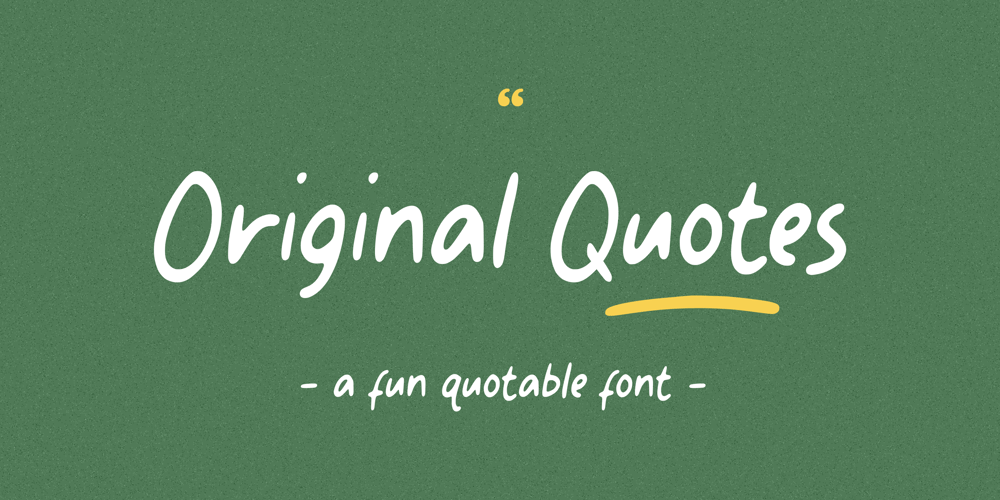
Original Quotes
Original Quotes font
Original Quotes Font Family was designed by Restu Angga and published by Balpirick. Original Quotes contains 1 styles and family package options. Original Quotes is a Fun Quotable Font. The font looks casual and playful. It’s perfect for handwritten notes, sweet greeting cards, beautiful quotes, and stand-out branding as well. The set contains additional items for your designalso multilingual supportEnjoy the font, feel free to comment or feedback, send me PM or email.Thank you!